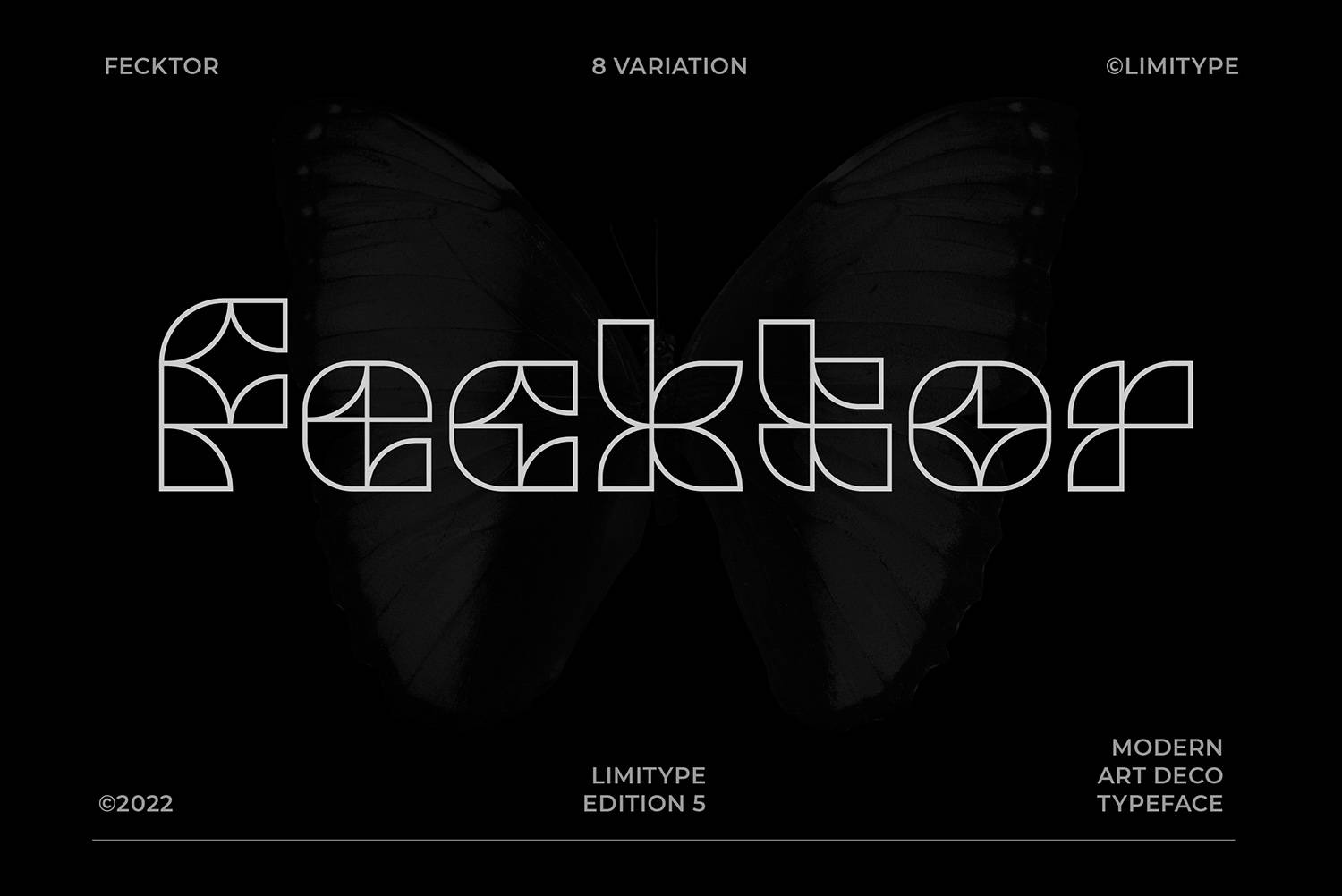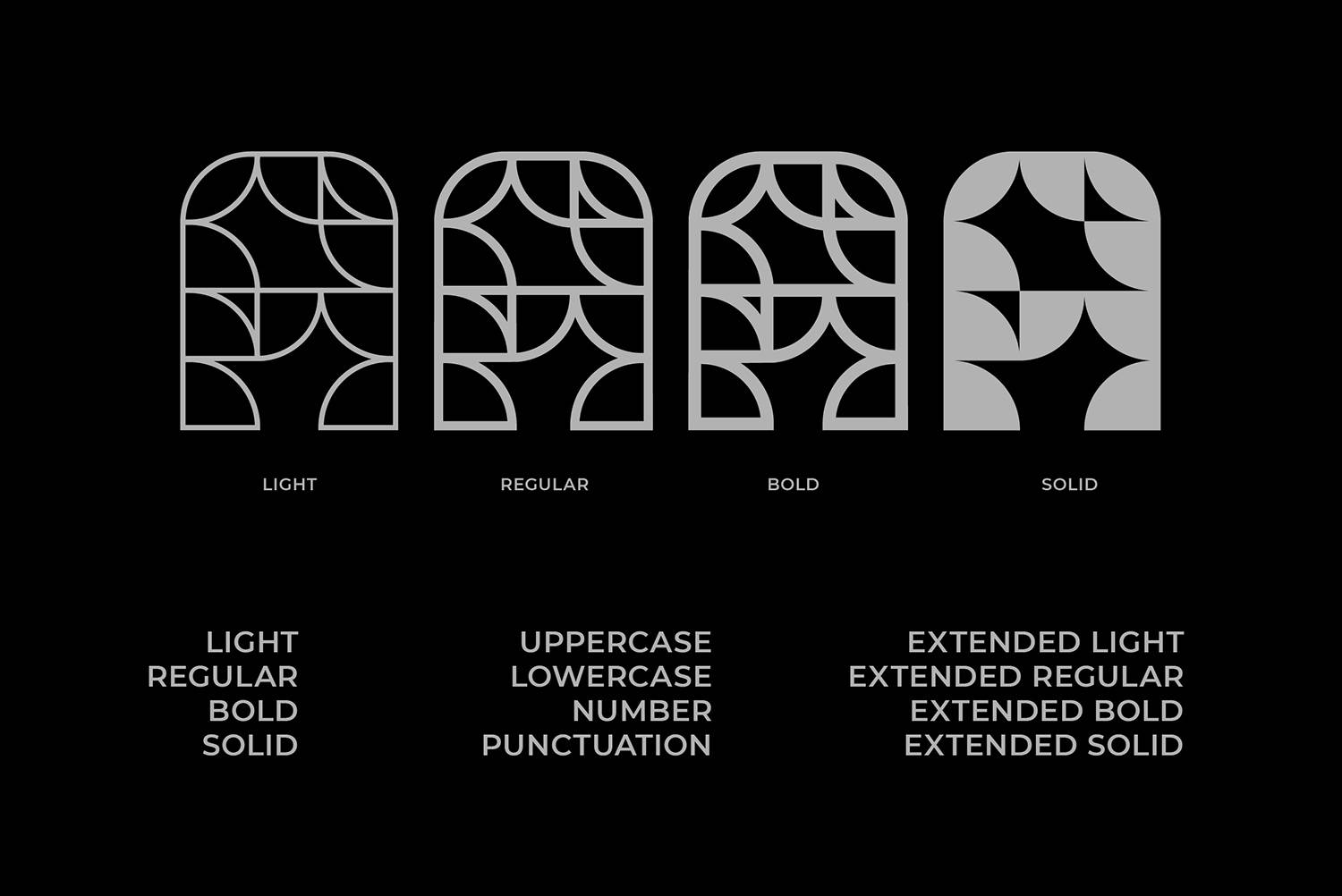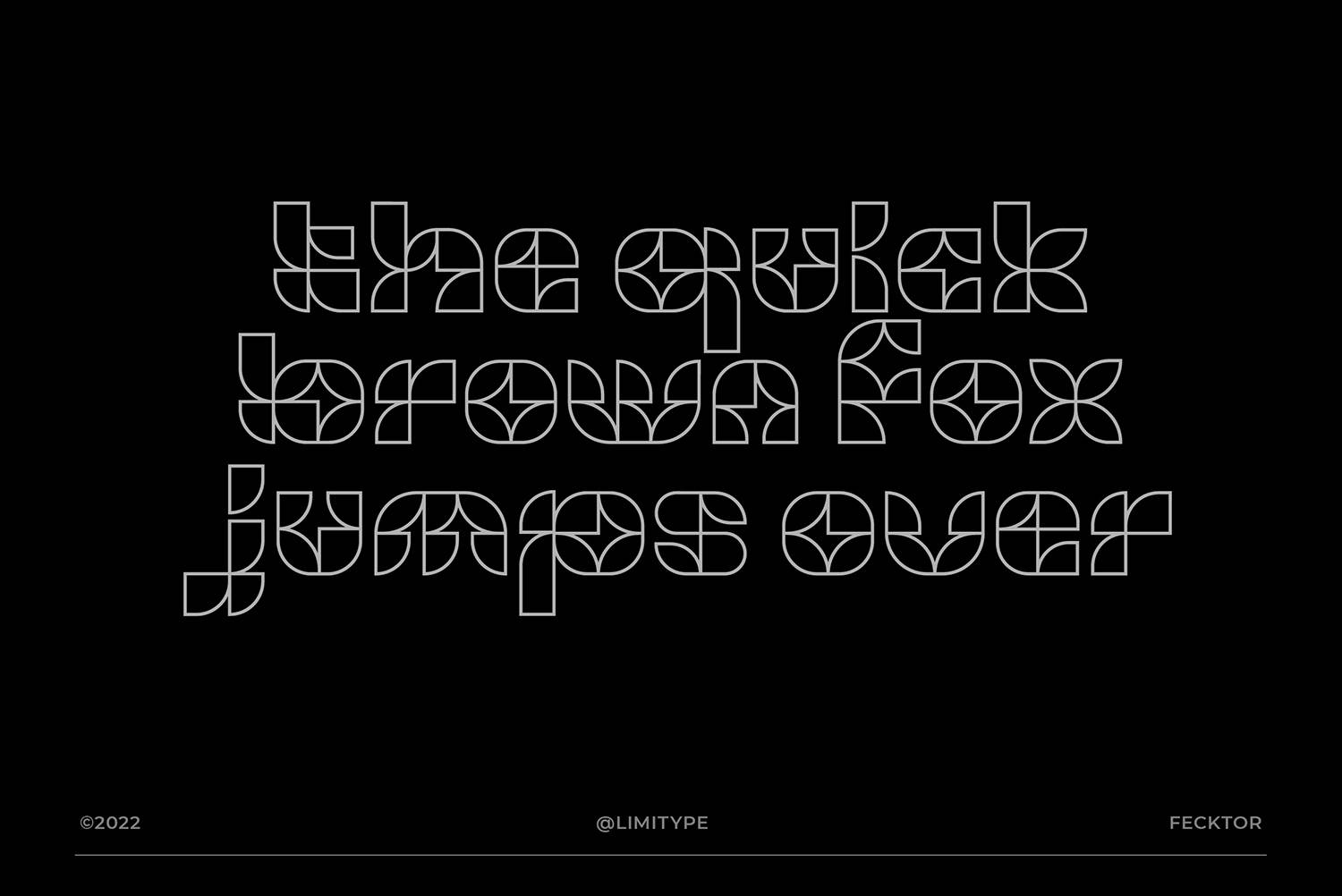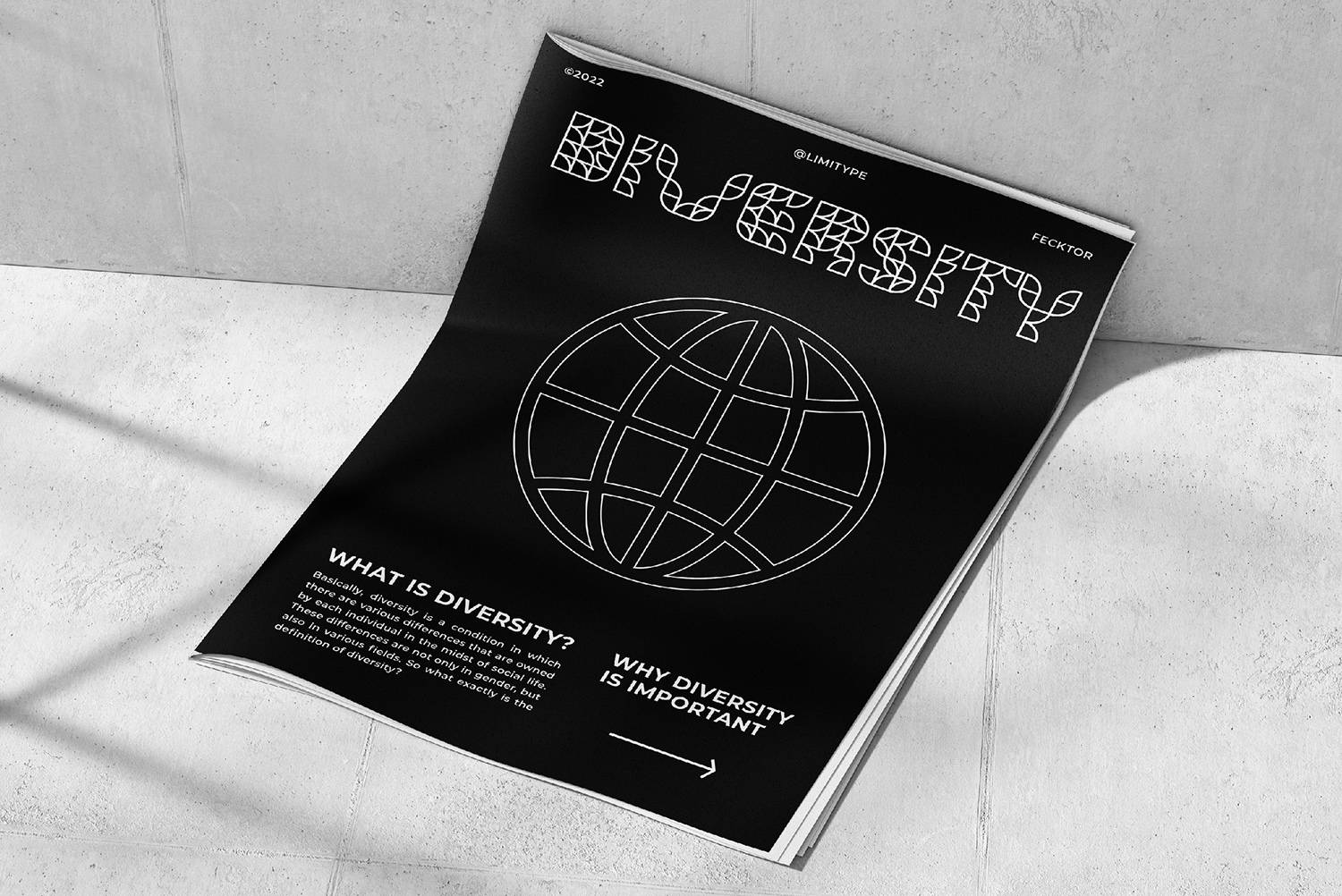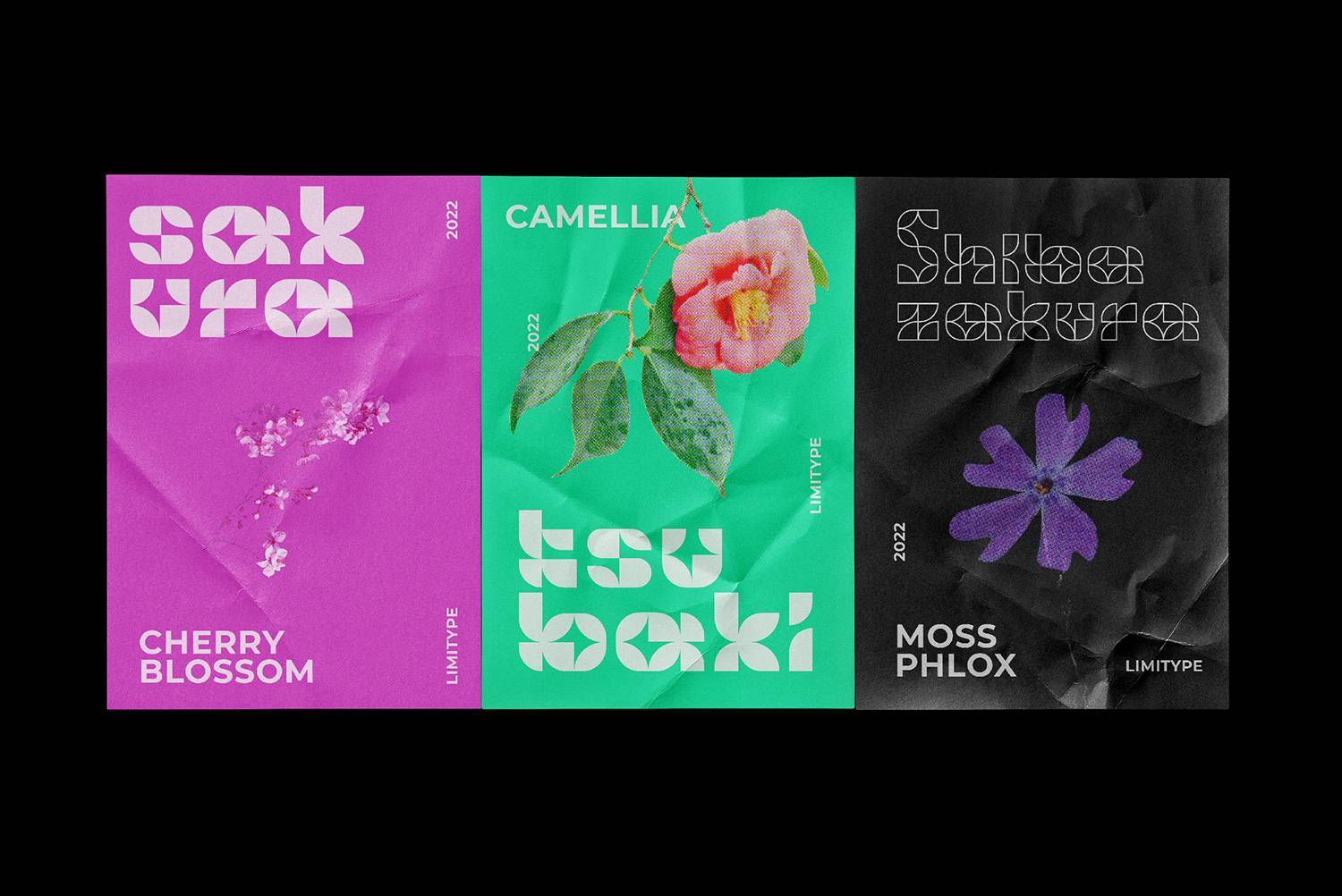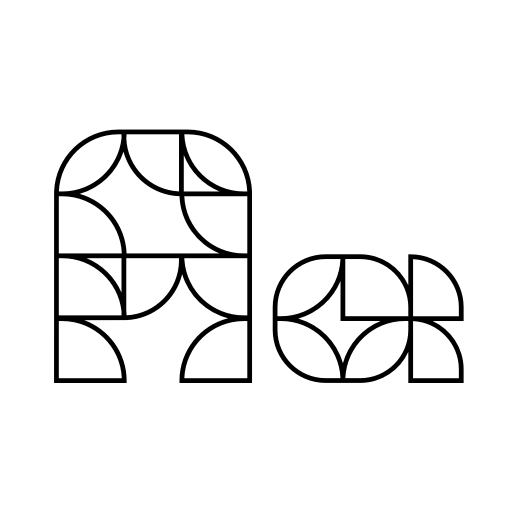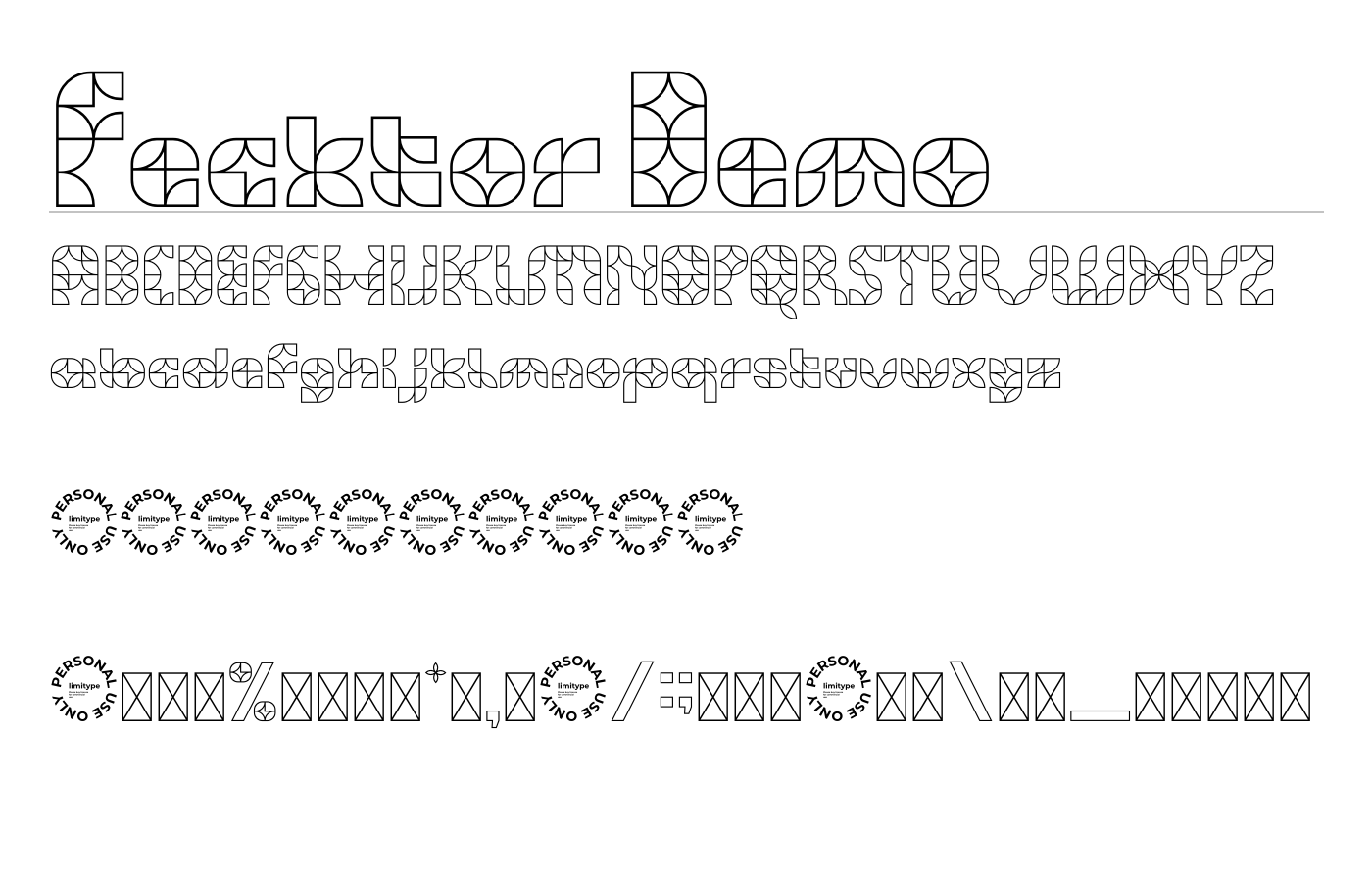
Fecktor is a decorative, geometric sans serif font characterized by its unique modular design, where each letter is composed of repeated circular and quarter-circle shapes creating a mosaic-like pattern. Its thin, outlined strokes and consistent width give it an airy, modern feel, making it ideal for creative projects, logos, and display uses where a distinctive, artistic touch is desired. This font works best in eye-catching headlines and branding that seek a playful yet structured aesthetic.